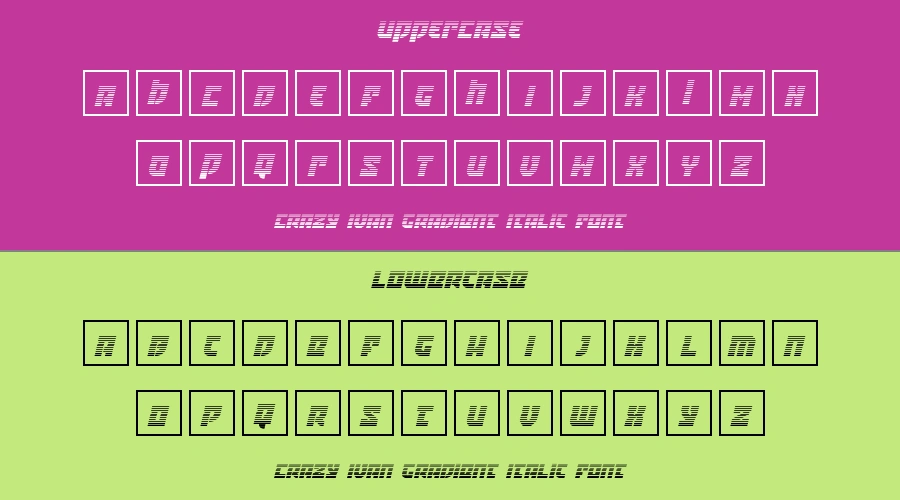
About Crazy Ivan Gradient Italic Font
Designed with precision, Crazy Ivan Gradient Italic Font merges strong contrast with reading comfort in every character. This versatility makes it particularly effective for brand guidelines, where clarity and manufacturing quality directly impact communication quality. Each letterform demonstrates meticulous craftsmanship.
Technical excellence shines through elements like monoline strokes and terminal forms, enhancing typographic versatility. In footnotes settings, Crazy Ivan Gradient Italic Font proves its worth through superior small text clarity. The thoughtful execution of joint detail and technical innovation ensures professional results.